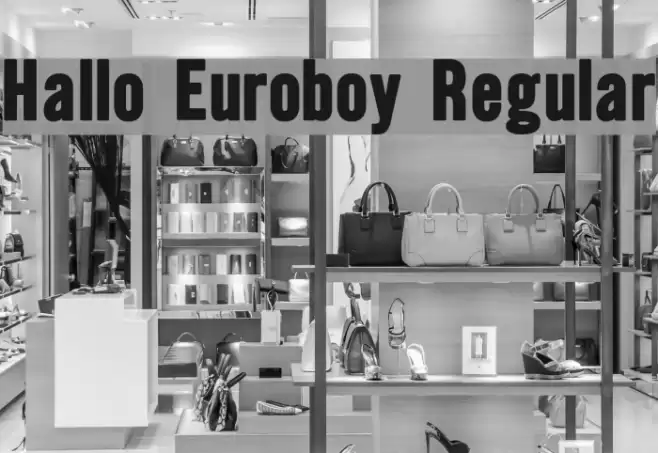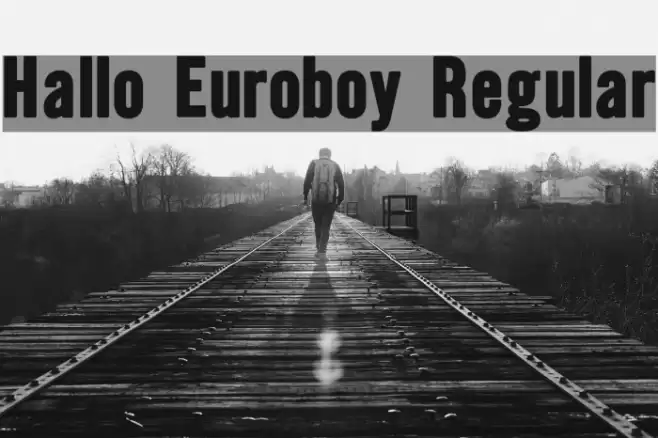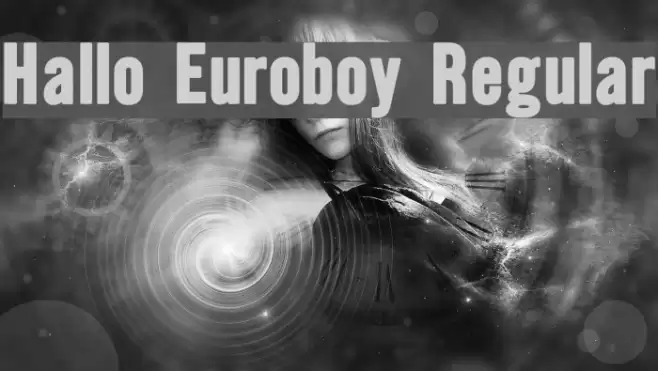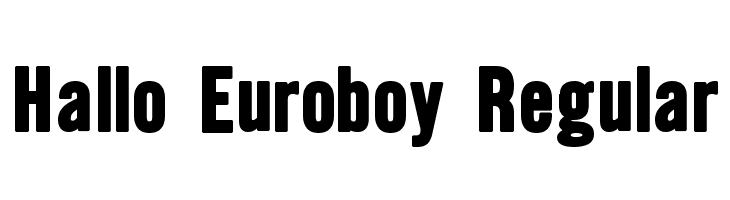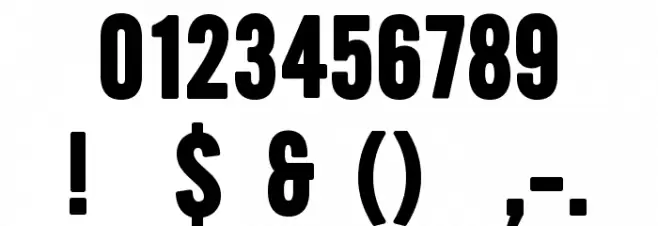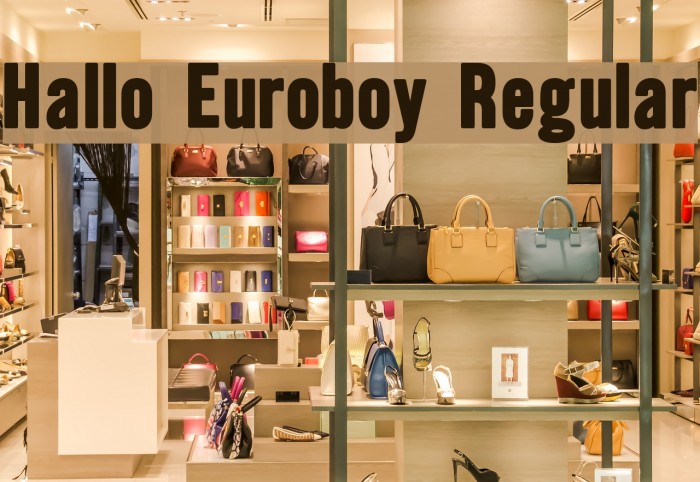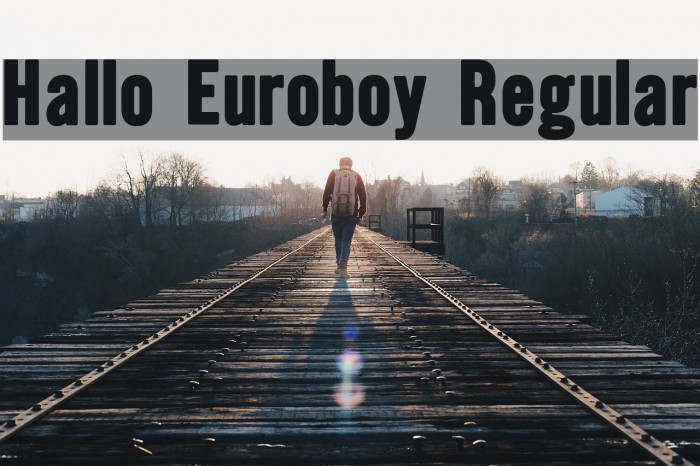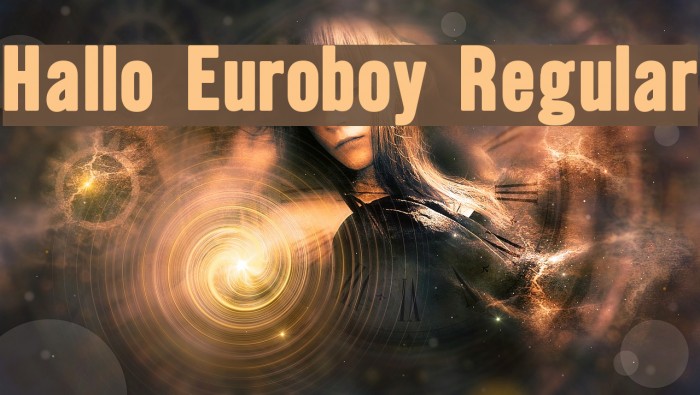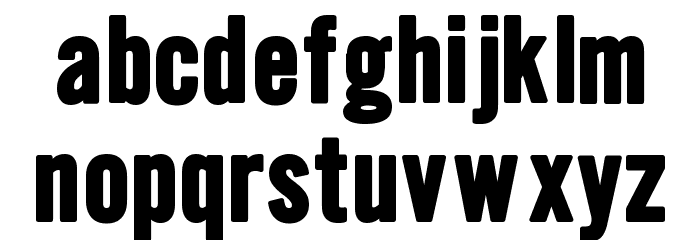
Hallo Euroboy Regular Font
Hallo Euroboy Regular Description
This font exhibits a bold and robust character with a strong presence. The uppercase and lowercase letters are designed with a uniform thickness, giving it a solid and impactful appearance. The numbers and special characters maintain the same boldness, ensuring consistency across all elements. The font's style is straightforward yet powerful, making it suitable for attention-grabbing designs. Its clean lines and lack of serifs contribute to a modern and sleek aesthetic, while the uniformity in stroke width provides a sense of stability and reliability.
A bold, modern font with a strong, uniform appearance from Uncategorized fonts.
- Proposed Projects: Ideal for headlines, posters, branding materials, and any design requiring a bold statement.